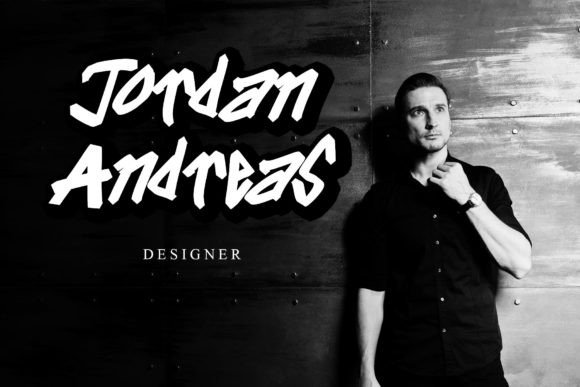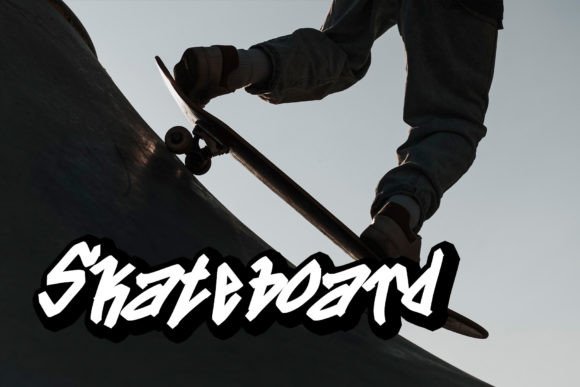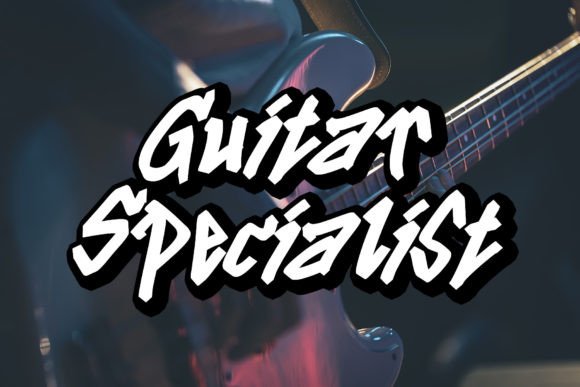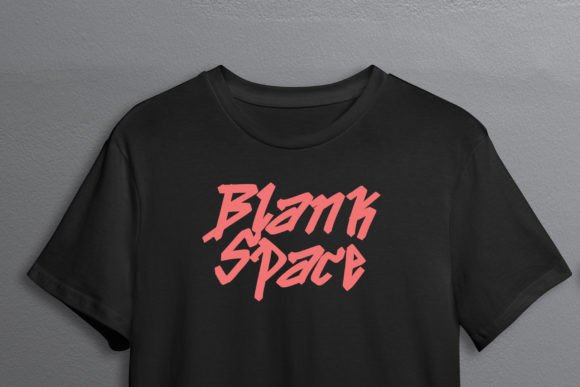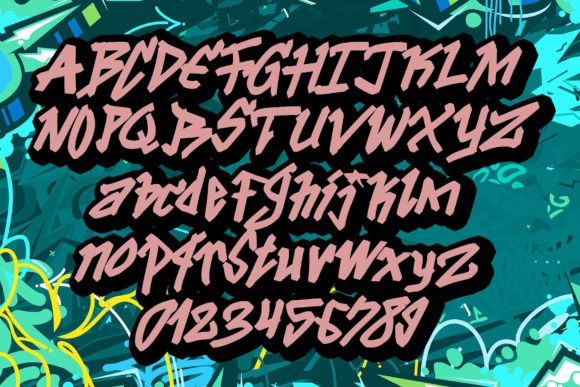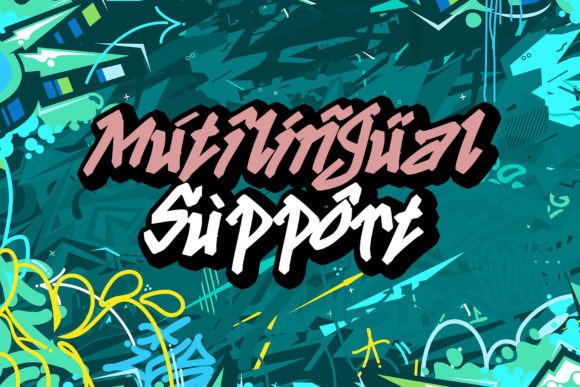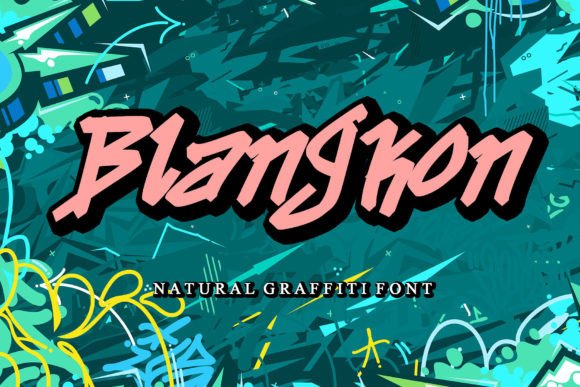
Introducing Blangkon Font: The Ultimate Graffiti Font for Creative Designs
Are you a designer or crafter looking for a unique and stylish font to add a personal touch to your designs? Look no further than Blangkon Font, a natural graffiti font that is perfect for a wide range of creative projects. In this article, we’ll take a closer look at Blangkon Font, its features, and how you can use it to elevate your designs.
What is Blangkon Font?
Blangkon Font is a carefully crafted graffiti font that is designed to give your designs a handwritten touch. Its natural and effortless look makes it perfect for a variety of applications, from thank you cards and quotes to greeting cards, logos, business cards, and more.
Key Features of Blangkon Font
• Natural Graffiti Look: Blangkon Font has a unique, natural graffiti look that sets it apart from other fonts. Its irregularities and imperfections give it a human touch that is perfect for designs that need a personal feel.
• Highly Versatile: Blangkon Font is incredibly versatile and can be used for a wide range of design projects, from digital designs to print materials.
• Easy to Read: Despite its graffiti look, Blangkon Font is easy to read and understand, making it perfect for designs that need to communicate a message.
• Unique Character Set: Blangkon Font comes with a unique character set that includes uppercase and lowercase letters, numbers, and punctuation marks.
How to Use Blangkon Font in Your Designs
Blangkon Font is perfect for designers and crafters who want to add a personal touch to their designs. Here are some ideas on how to use Blangkon Font in your designs:
• Thank You Cards: Add a personal touch to your thank you cards with Blangkon Font. Its natural graffiti look makes it perfect for expressing gratitude and appreciation.
• Quotes and Inspirational Messages: Use Blangkon Font to create inspiring and motivational quotes that will resonate with your audience.
• Greeting Cards: Create beautiful greeting cards for special occasions such as birthdays, weddings, and holidays with Blangkon Font.
• Logos and Branding: Use Blangkon Font to create unique and memorable logos and branding materials that will set your business apart.
• Business Cards: Add a personal touch to your business cards with Blangkon Font. Its natural graffiti look makes it perfect for creative professionals and entrepreneurs.
Tips for Using Blangkon Font Effectively
Here are some tips for using Blangkon Font effectively in your designs:
• Keep it Simple: Blangkon Font is a bold and expressive font, so it’s best to keep your design simple and uncluttered to let the font shine.
• Experiment with Colors: Blangkon Font looks great in a variety of colors, so don’t be afraid to experiment and find the perfect color scheme for your design.
• Use it for Headlines and Titles: Blangkon Font is perfect for headlines and titles, so use it to add a bold and eye-catching touch to your designs.
Blangkon Font is a unique and stylish graffiti font that is perfect for designers and crafters who want to add a personal touch to their designs. Its natural and effortless look makes it perfect for a wide range of creative projects, from thank you cards and quotes to logos and business cards. With its highly versatile and easy-to-read design, Blangkon Font is sure to become a favorite in your font collection.